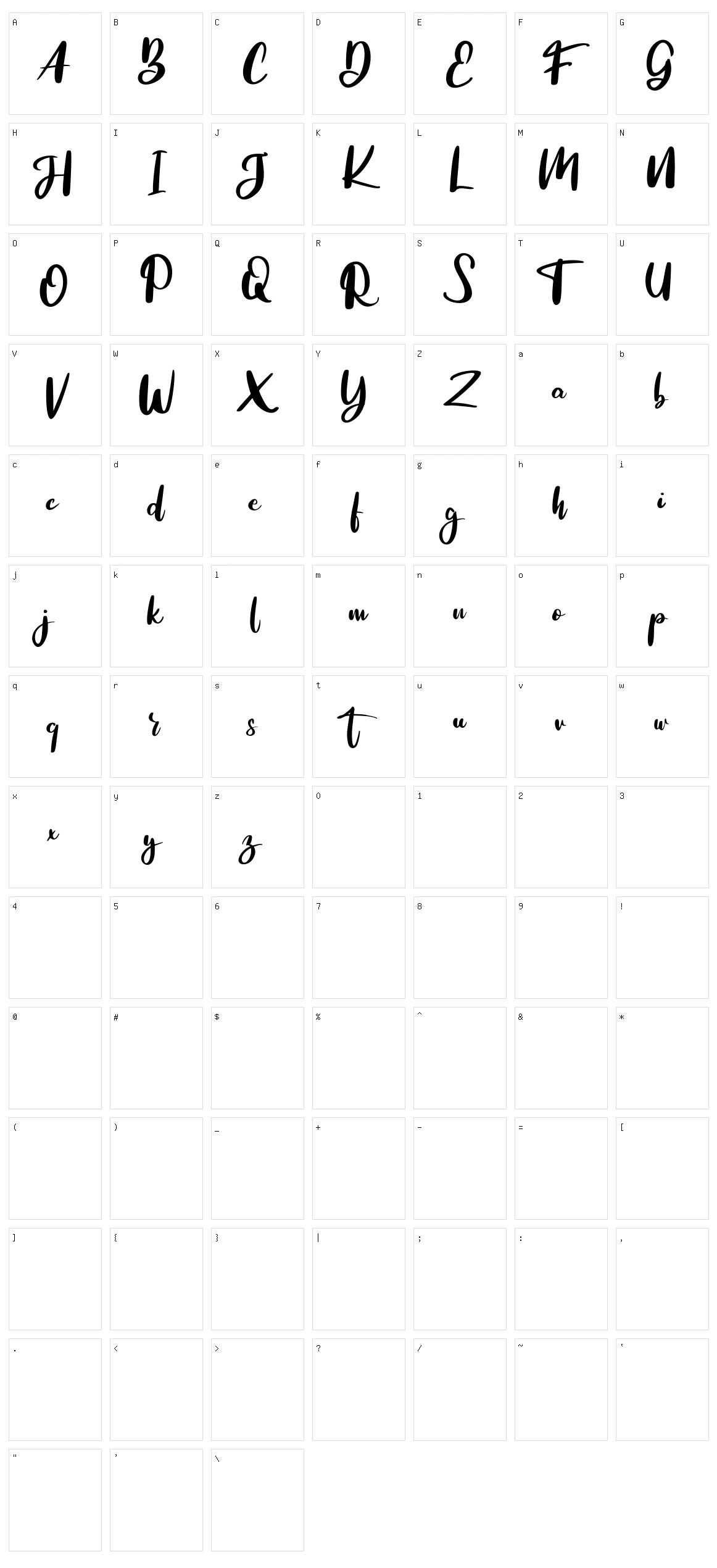
The free font The Blog Malog is carefully designed by Vunira Design, showcasing a thoughtful balance of creativity and usability and falls under the Script font style. When you download the ZIP file, it contains only 32.38 KB of font files, making it lightweight and quick to download. Please review the license details below to understand permitted usage and distribution rights. If license information is not available, we recommend using this font for personal projects only or contacting the author directly for commercial usage permissions.